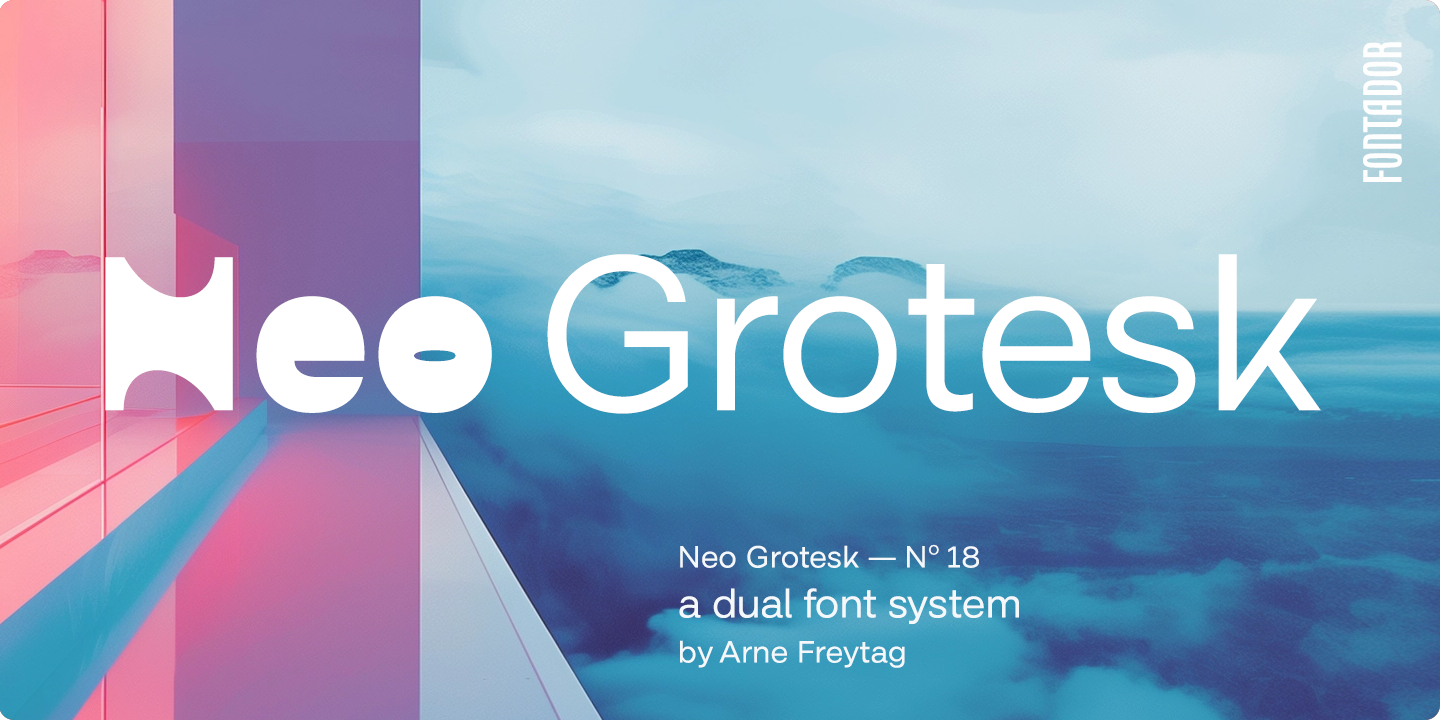
Please note, you must purchase this font for commercial use. You can download Neo Grotesk Font Free Download for testing purposes and explore its sleek, modern design. Neo Grotesk Font is perfect for contemporary branding, editorial projects, websites, and any design that requires a clean, minimalistic look.
With its geometric shapes, balanced proportions, and neutral appearance, Neo Grotesk Font brings a polished, professional aesthetic to your designs. It's ideal for logos, headings, user interfaces, and digital content that demand clarity, readability, and style.
Neo Grotesk Font Free Download supports multilingual characters, making it suitable for global projects. Its clear and legible design ensures readability across both print and digital formats, making it a versatile choice for a variety of creative applications.